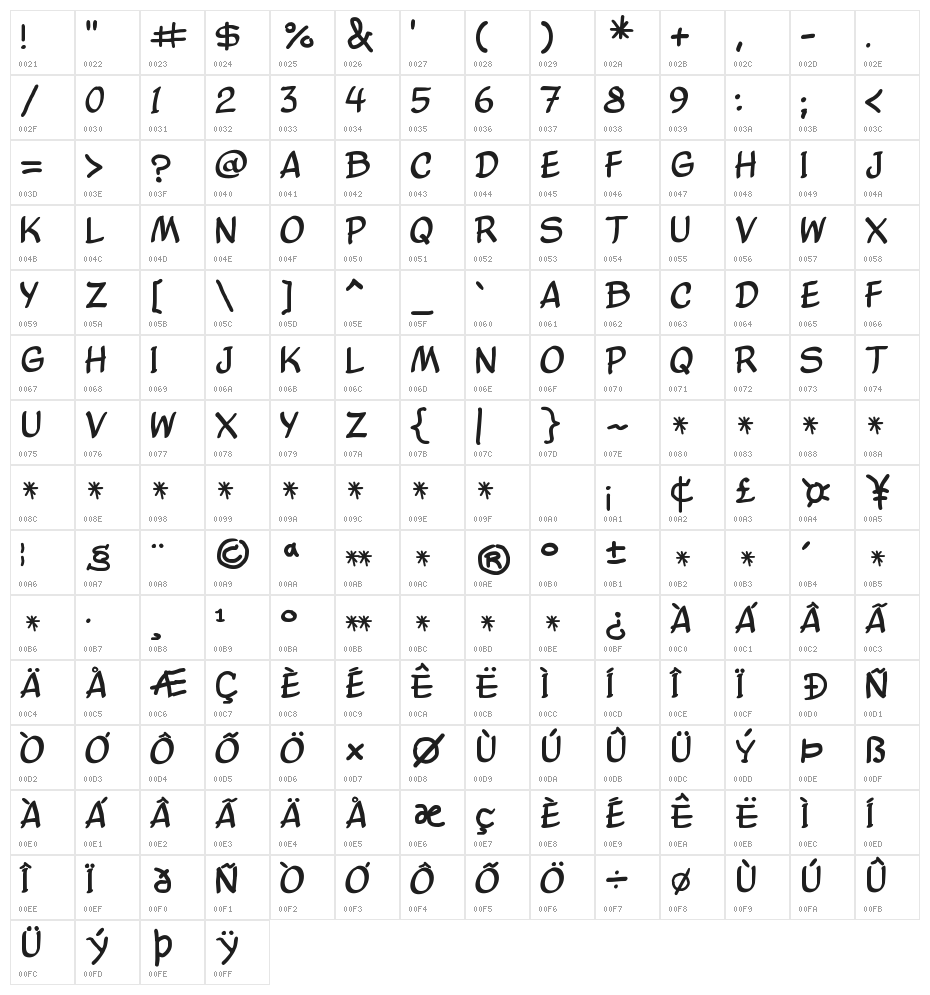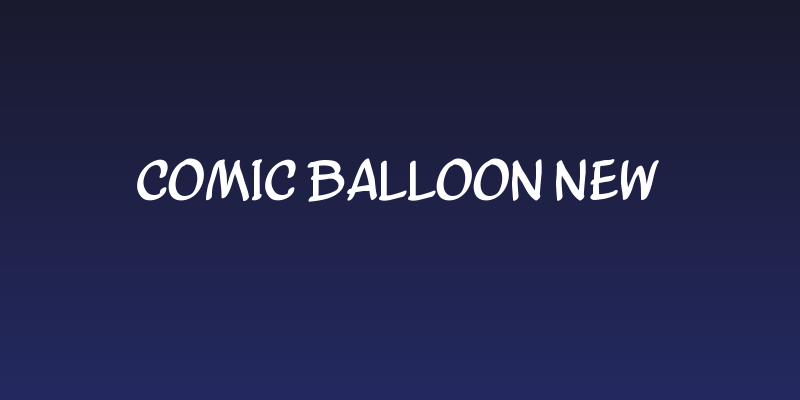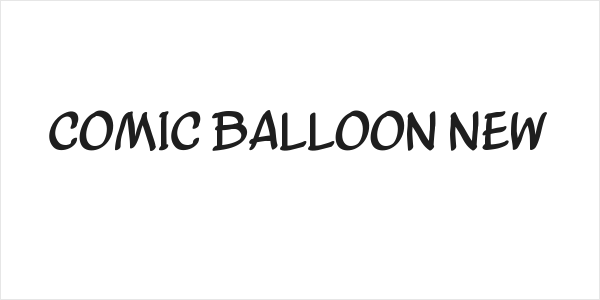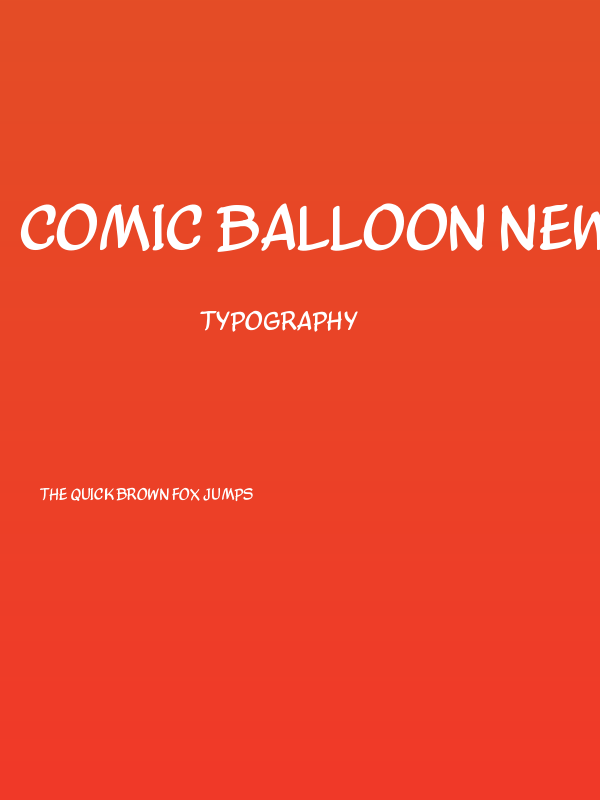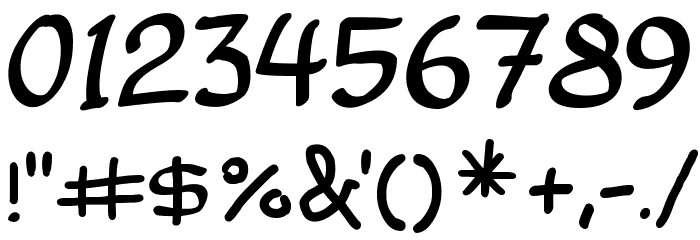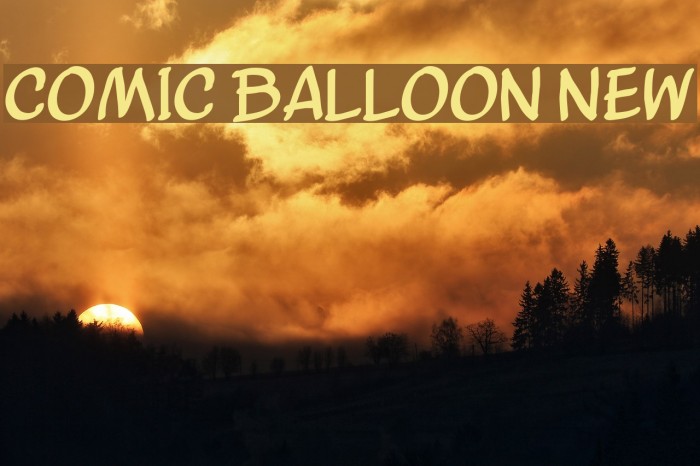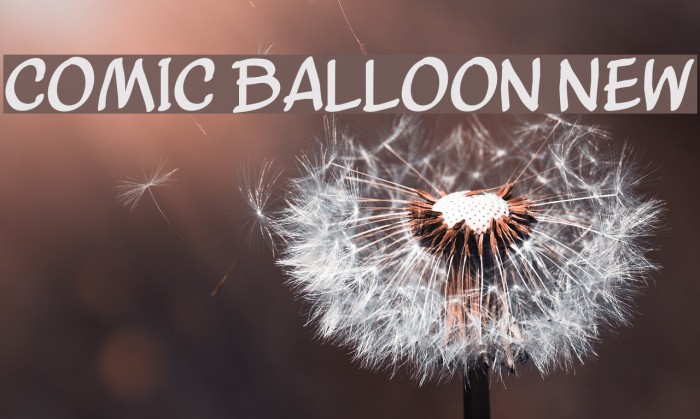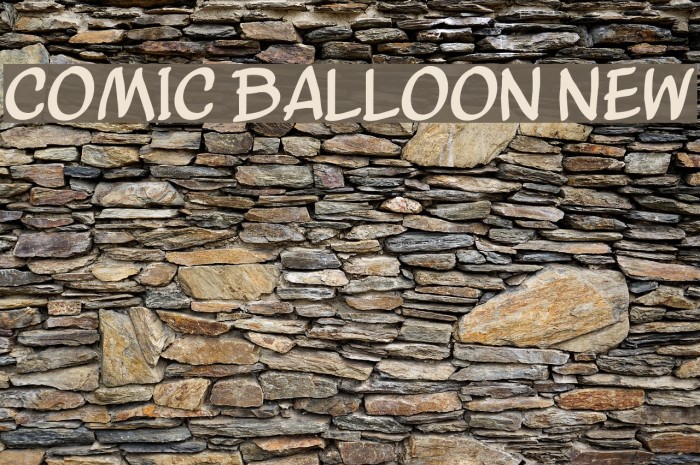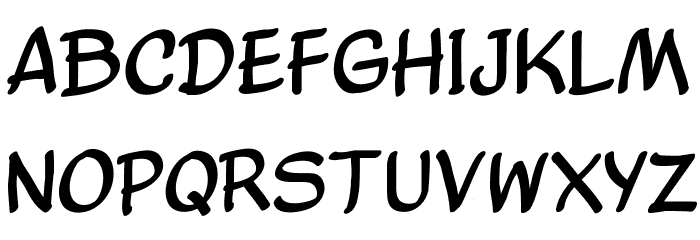
Comic Balloon New Font
Comic Balloon New Description
This playful and whimsical font features a handwritten style with a comic flair. The characters are bold and rounded, giving them a balloon-like appearance that adds a sense of fun and lightheartedness. The strokes are consistent in weight, providing a uniform look across all letters and numbers. The font includes both uppercase and lowercase letters, numerals, and a variety of special characters, making it versatile for different uses. Its informal and friendly style is perfect for projects that require a touch of humor and creativity.
| Proposed Projects | Ideal for comic books, children's books, playful branding, greeting cards, and informal invitations. |